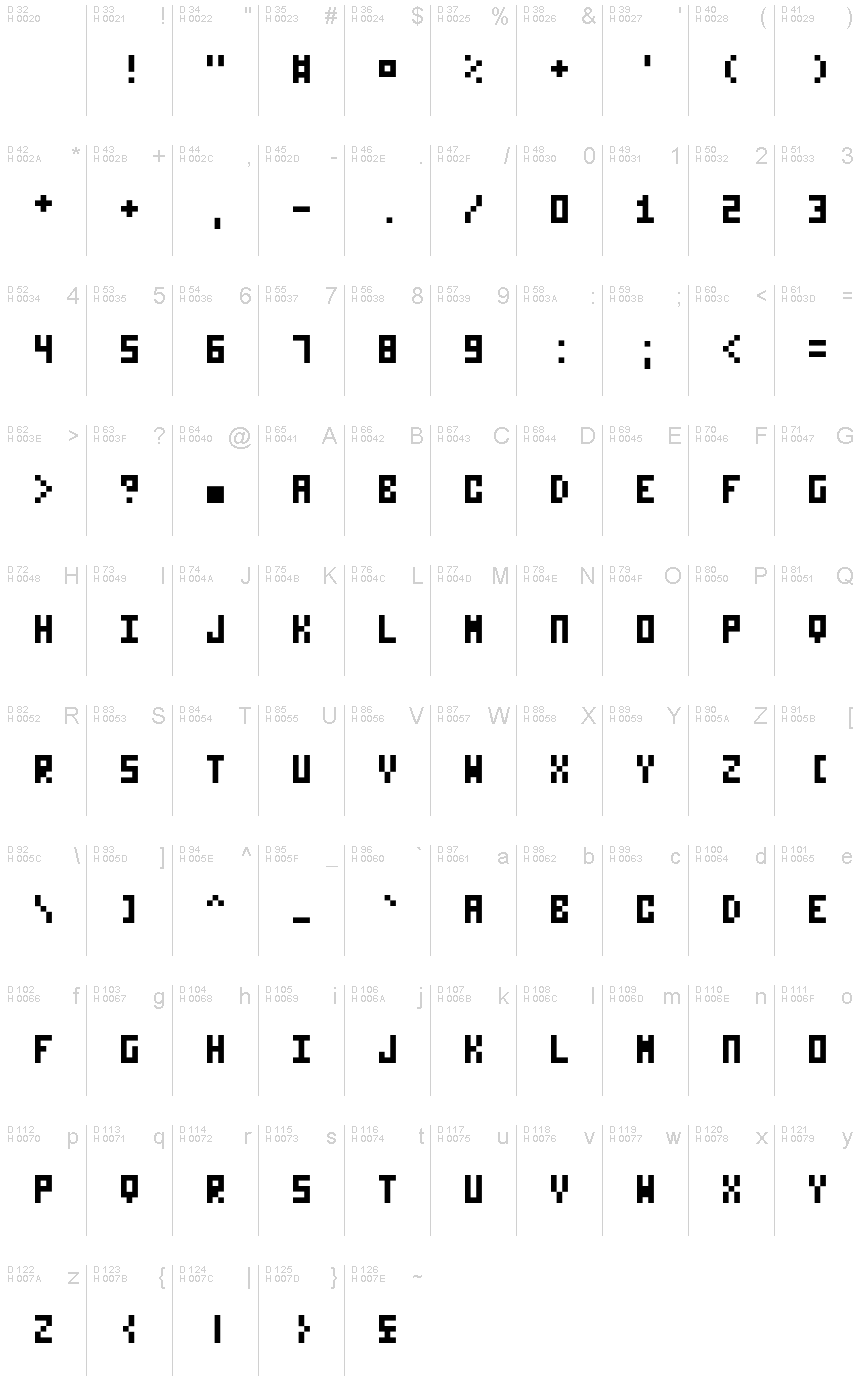
NANOTYPE
Nanotype is a captivating bitmap font that exudes a distinct pixelated charm. Crafted by the talented team at Space Bake, this condensed font boasts a bold, geometric aesthetic that commands attention. The sharp, angular letterforms and the uncompromising pixelated style lend Nanotype a striking, retro-futuristic vibe, making it a compelling choice for a wide range of design applications.
From game interfaces and digital art to eye-catching posters and packaging, Nanotype's versatility allows it to seamlessly integrate into diverse creative projects, imbuing them with a sense of nostalgic futurism.